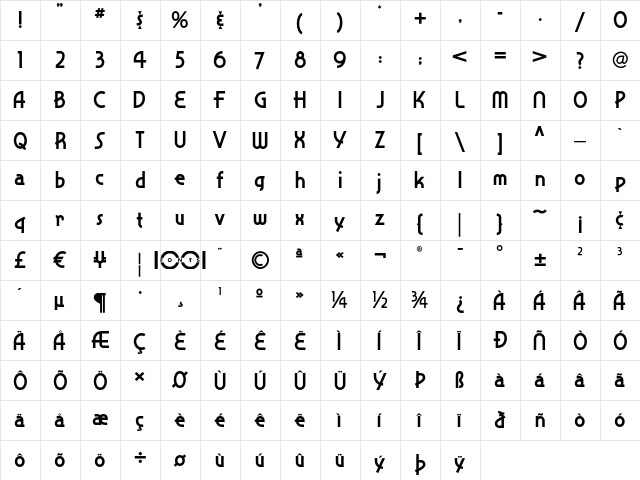
Snappy Service NF Regular
Design Context for Snappy Service NF Typeface
Snappy Service NF offers clean, dependable letterforms without strong stylistic allegiance, making it a practical choice for designers who need flexibility.